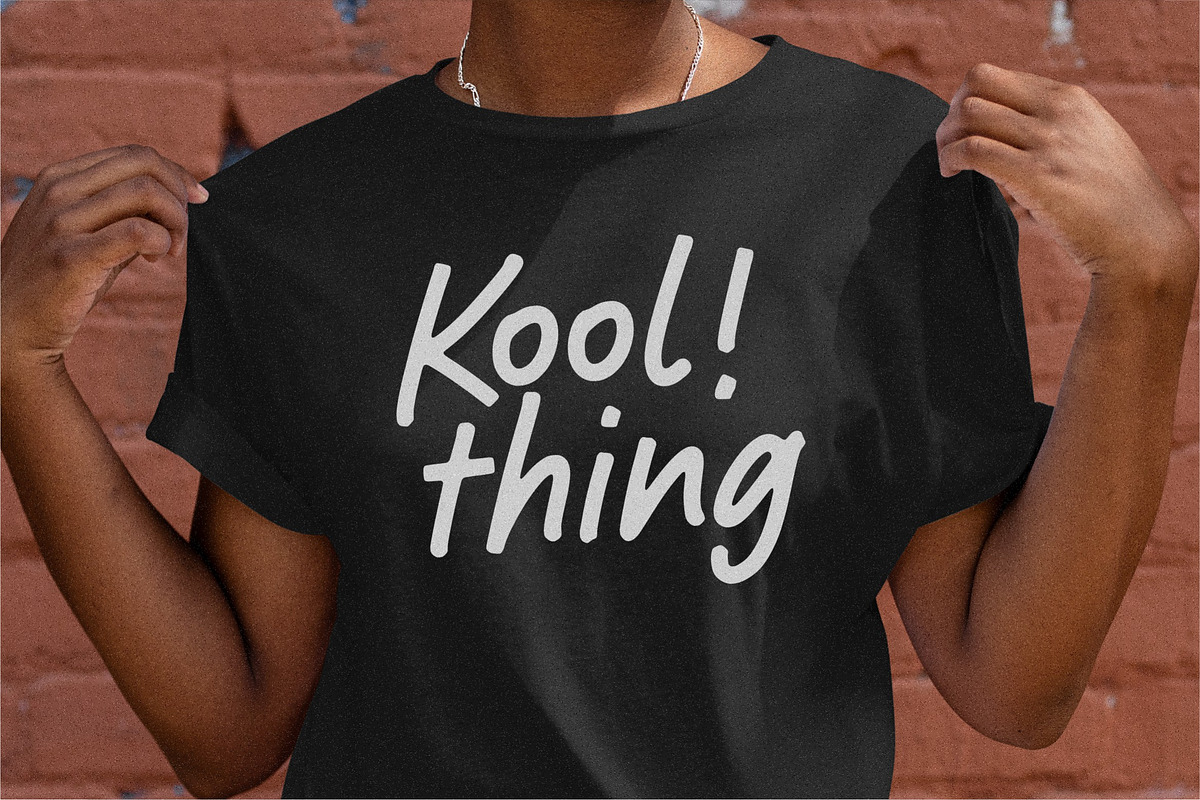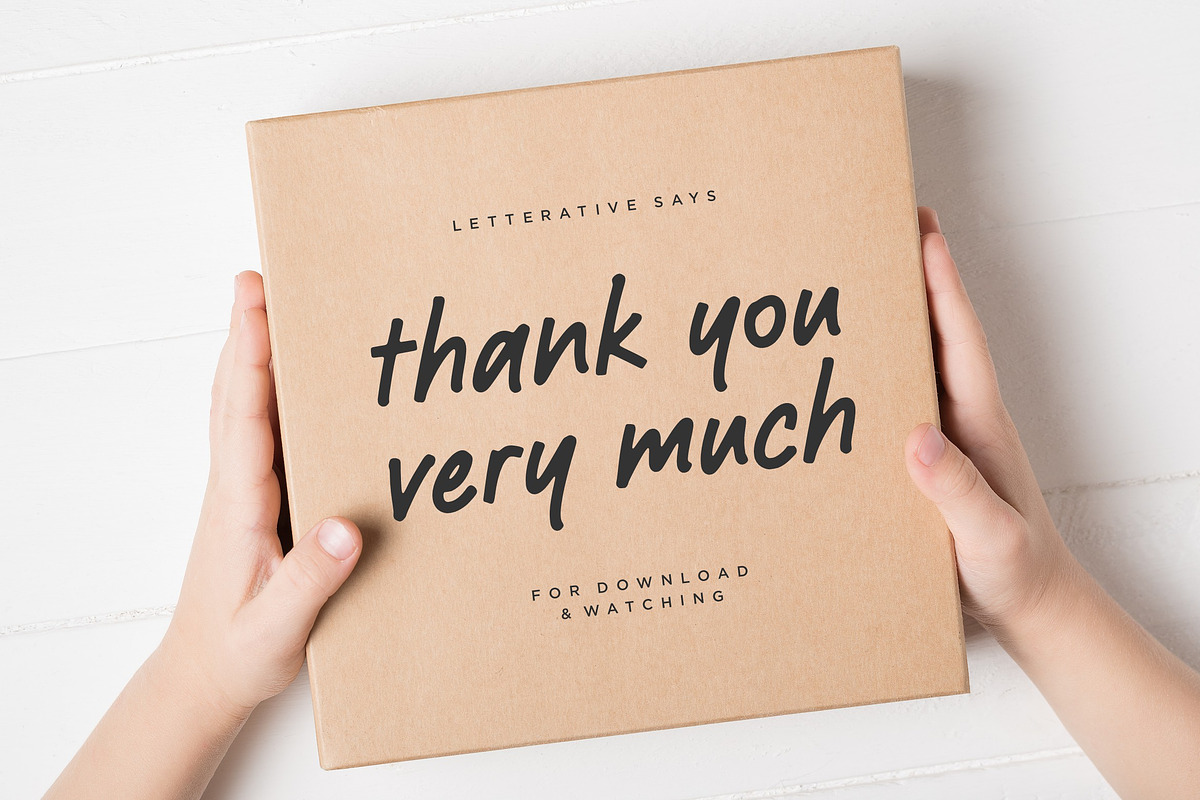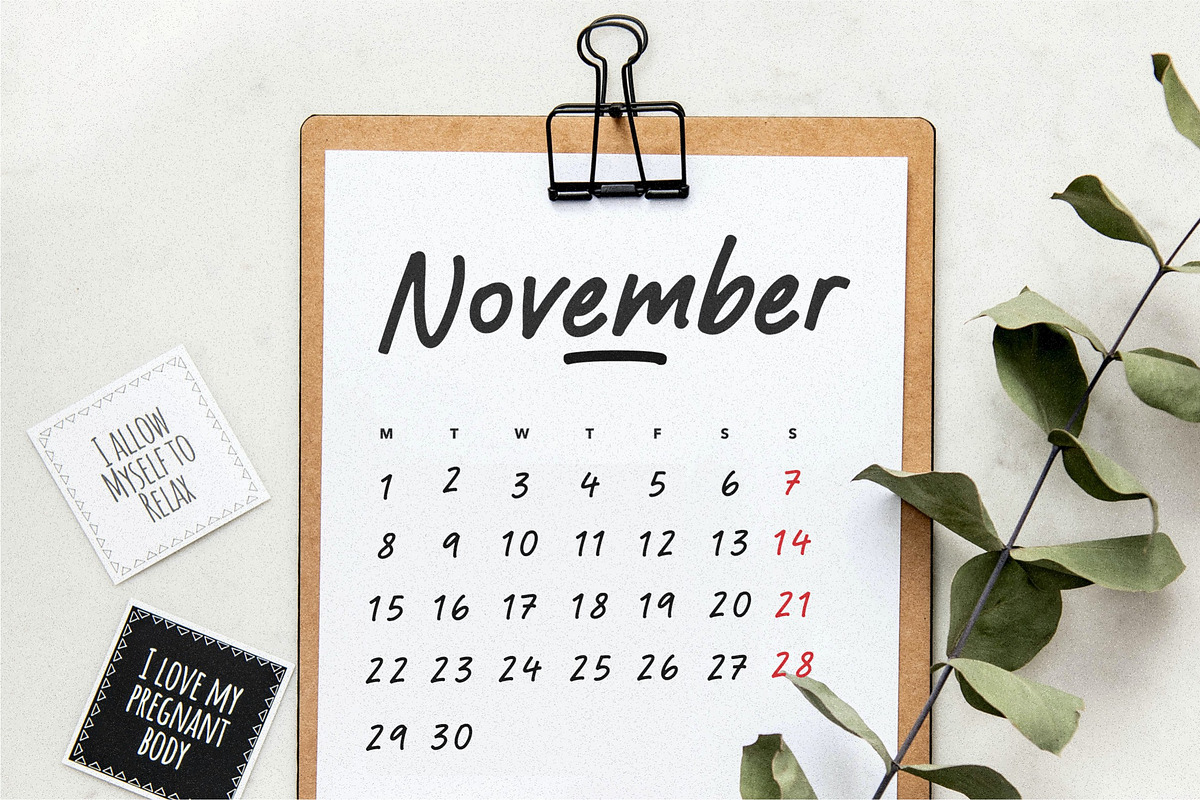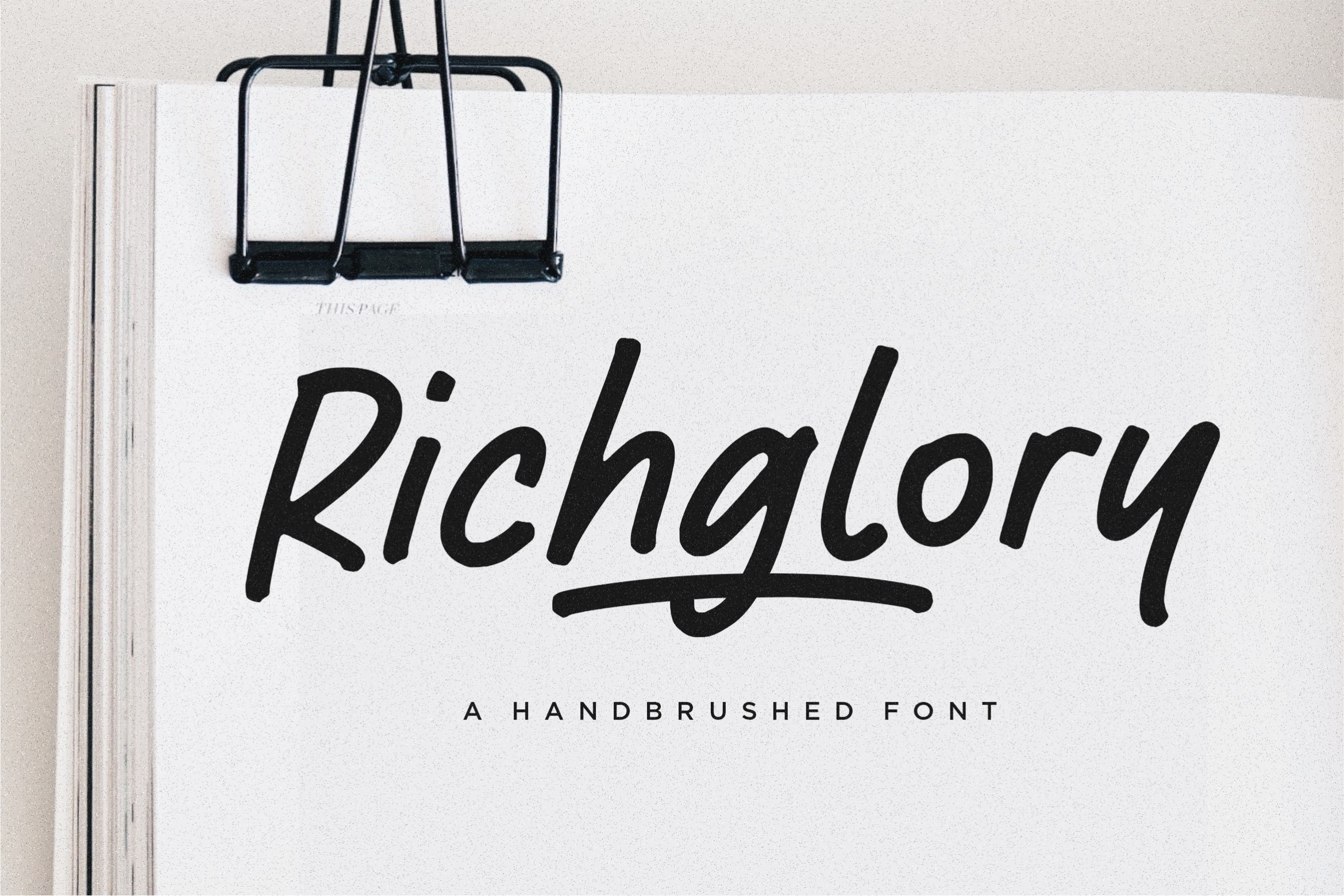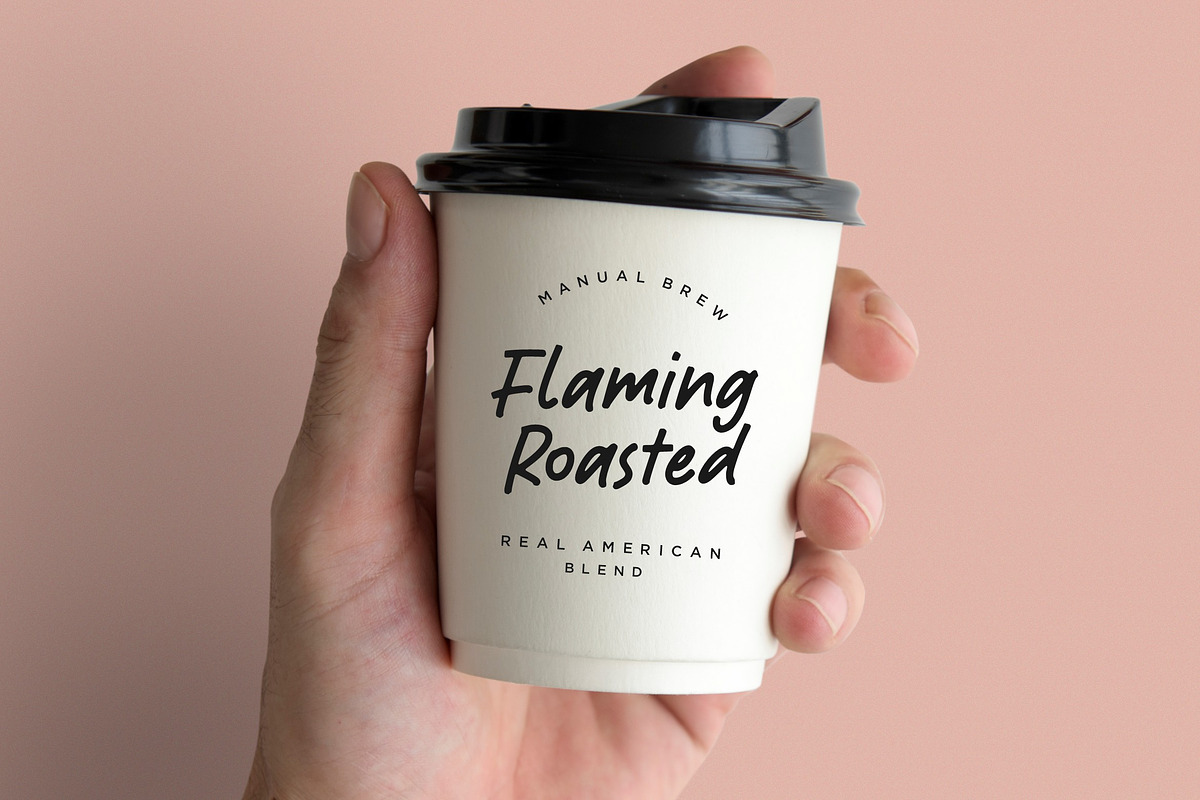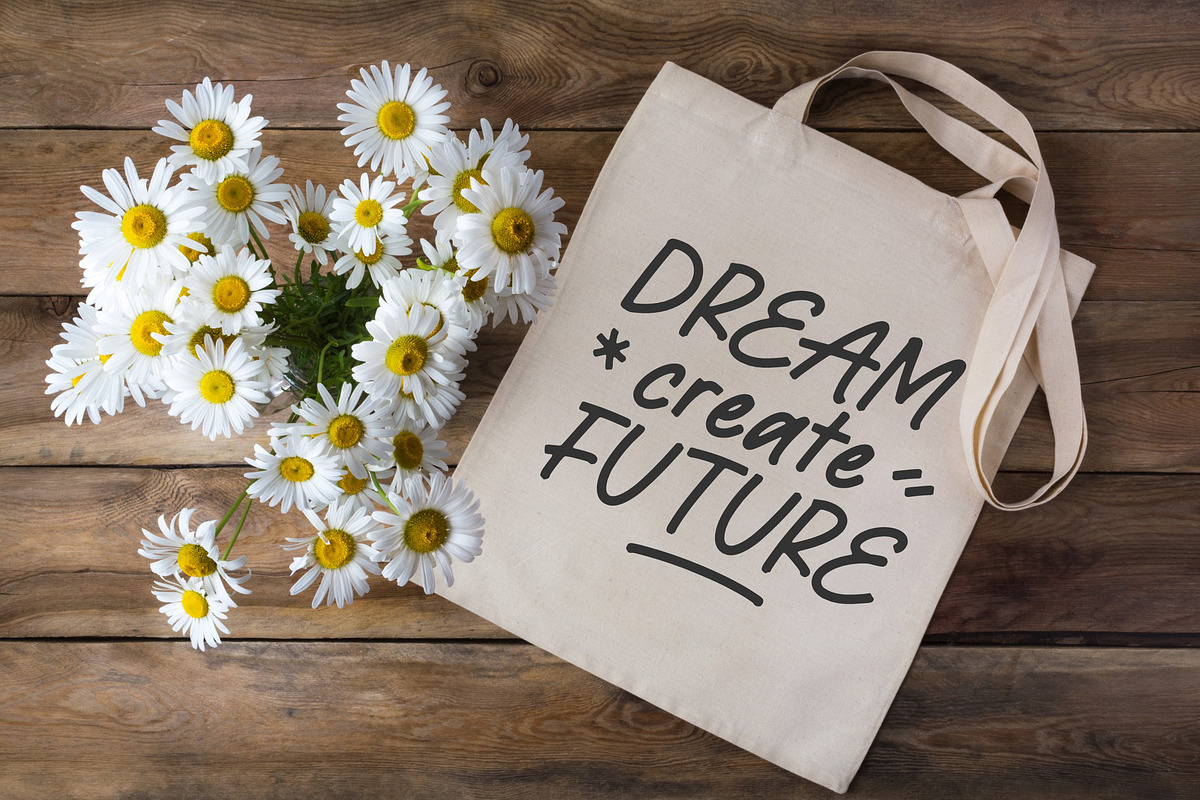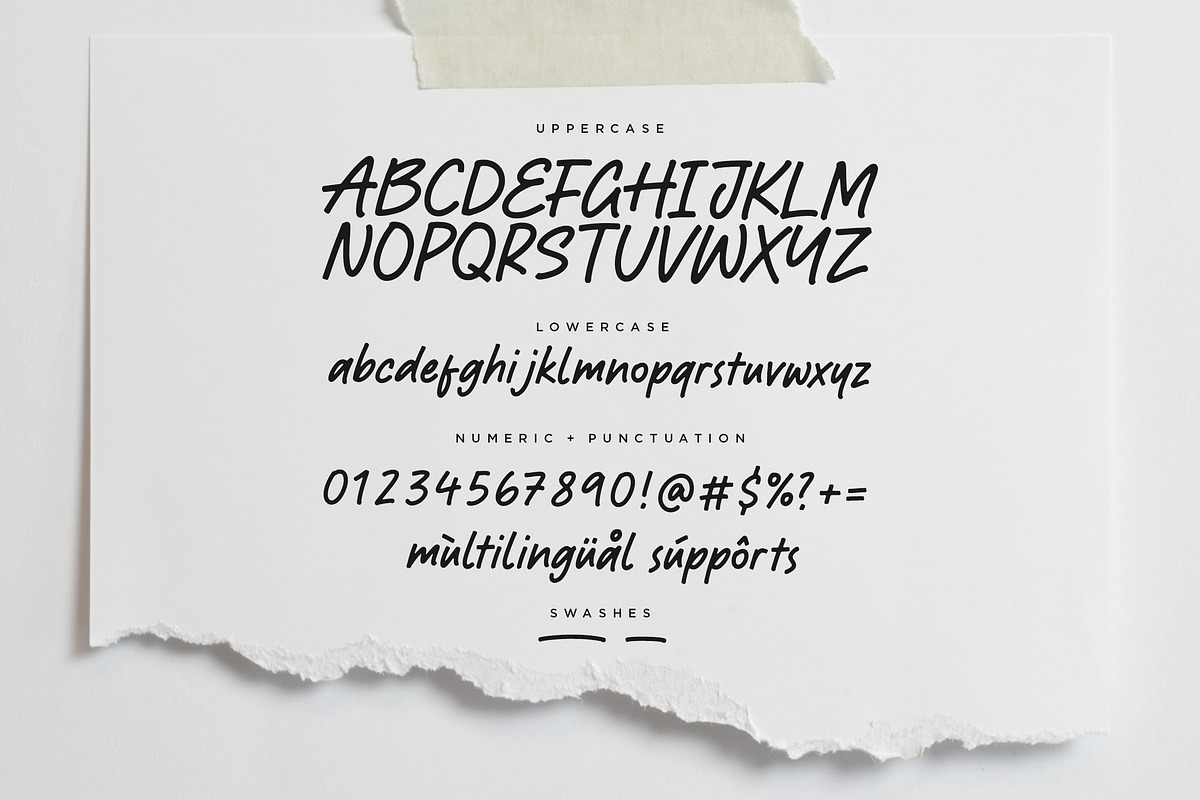
Richglory - Handbrushed Font
Introducing by Letterative Studio : Richglory Font
Richglory is a Handbrushed Font
Richglory is a modern handbrushed font. Whether you’re using it for crafts, digital design, presentations, or making greeting cards, this font has the potential to become your favorite go-to font, no matter the occasion!